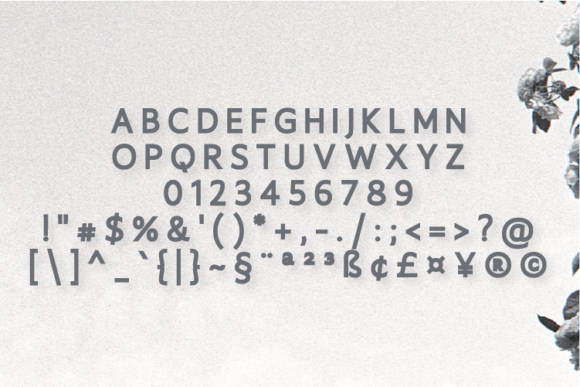
Eryck Font: Elevate Your Design with Elegance
Eryck is an elegant sans serif font that has been making waves in the design community. Its clean lines, sophisticated style, and versatility make it an ideal choice for a wide range of projects, from logos and quotes to magazines and more. In this article, we’ll dive into the world of Eryck Font, exploring its features, benefits, and uses, as well as provide tips and inspiration for designers and crafters looking to elevate their work.
The Characteristics of Eryck Font
Eryck Font is a sans serif font, which means it doesn’t have the small lines or flourishes at the ends of the letters. This gives it a clean and modern look that’s perfect for designs that require a touch of sophistication. The font’s elegant style is characterized by its:
- Clean lines: Eryck’s lines are smooth and uncomplicated, making it easy to read and understand.
- Geometric shapes: The font’s letters are composed of simple geometric shapes, which gives it a modern and minimalist feel.
- High x-height: The x-height of Eryck Font is relatively high, which makes it more legible and easier to read.
Benefits of Using Eryck Font
Eryck Font offers a range of benefits that make it an attractive choice for designers and crafters. Some of the advantages of using Eryck Font include:
- Versatility: Eryck Font is suitable for a wide range of projects, from logos and branding to magazines, posters, and more.
- Elegance: The font’s elegant style adds a touch of sophistication to any design, making it perfect for high-end brands and luxury products.
- Legibility: Eryck Font is highly legible, even at small sizes, which makes it ideal for body text and captions.
- Uniqueness: Eryck Font has a unique style that sets it apart from other sans serif fonts, making it a great choice for designers looking to create something distinctive.
Uses of Eryck Font
Eryck Font is a versatile font that can be used in a variety of contexts. Some of the most popular uses of Eryck Font include:
- Logos and branding: Eryck Font is perfect for creating elegant and sophisticated logos that make a lasting impression.
- Magazines and publications: The font’s legibility and elegance make it an excellent choice for body text and headlines in magazines, newspapers, and online publications.
- Posters and flyers: Eryck Font is a great choice for posters and flyers, adding a touch of sophistication and elegance to any design.
- Quotes and typography: The font’s clean lines and geometric shapes make it perfect for creating beautiful typography and quotes.
Tips for Using Eryck Font
Here are some tips for getting the most out of Eryck Font:
- Use it sparingly: Eryck Font is a elegant font that can quickly become overwhelming if overused. Use it sparingly to create a lasting impression.
- Experiment with sizes: Eryck Font is highly legible at small sizes, but it can also be used at larger sizes to create a dramatic effect.
- Pair it with other fonts: Eryck Font can be paired with other fonts to create a unique and interesting contrast.
Inspiration and Resources
If you’re looking for inspiration or resources to help you get started with Eryck Font, here are a few ideas:
- Graphic design communities: Joining graphic design communities like Reddit’s r/design can connect you with other designers who can provide inspiration and advice.
In conclusion, Eryck Font is an elegant sans serif font that’s perfect for designers and crafters looking to add a touch of sophistication to their work. Its versatility, legibility, and unique style make it an excellent choice for a wide range of projects, from logos and branding to magazines and more. With these tips and resources, you’ll be well on your way to creating beautiful designs with Eryck Font.